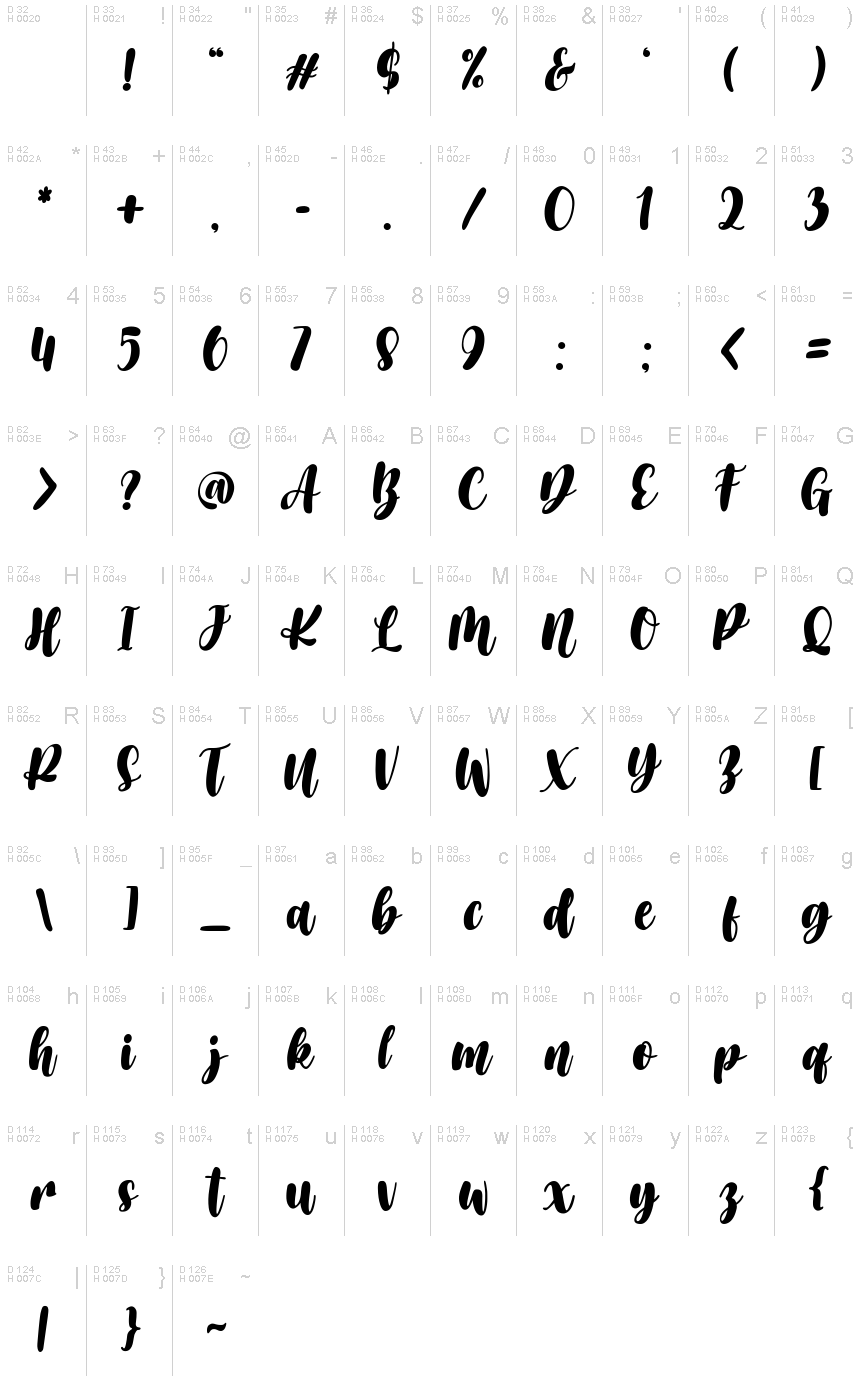
Carmitta
Carmitta, a captivating calligraphic font crafted by the talented Ikrar Bey Khubaib, effortlessly blends elegance and dynamism. This bold typeface exudes a sense of refined sophistication, with its flowing strokes and graceful curves that evoke a timeless, artisanal aesthetic. The Carmitta font's striking presence commands attention, making it a versatile choice for a wide range of design applications.
The Carmitta font's bold, expressive nature lends itself beautifully to headlines, titling, and branding initiatives, where its powerful presence can make a lasting impression. Its calligraphic charm also makes it an excellent selection for wedding invitations, event materials, and editorial layouts, where the font's inherent elegance can elevate the overall design aesthetic.